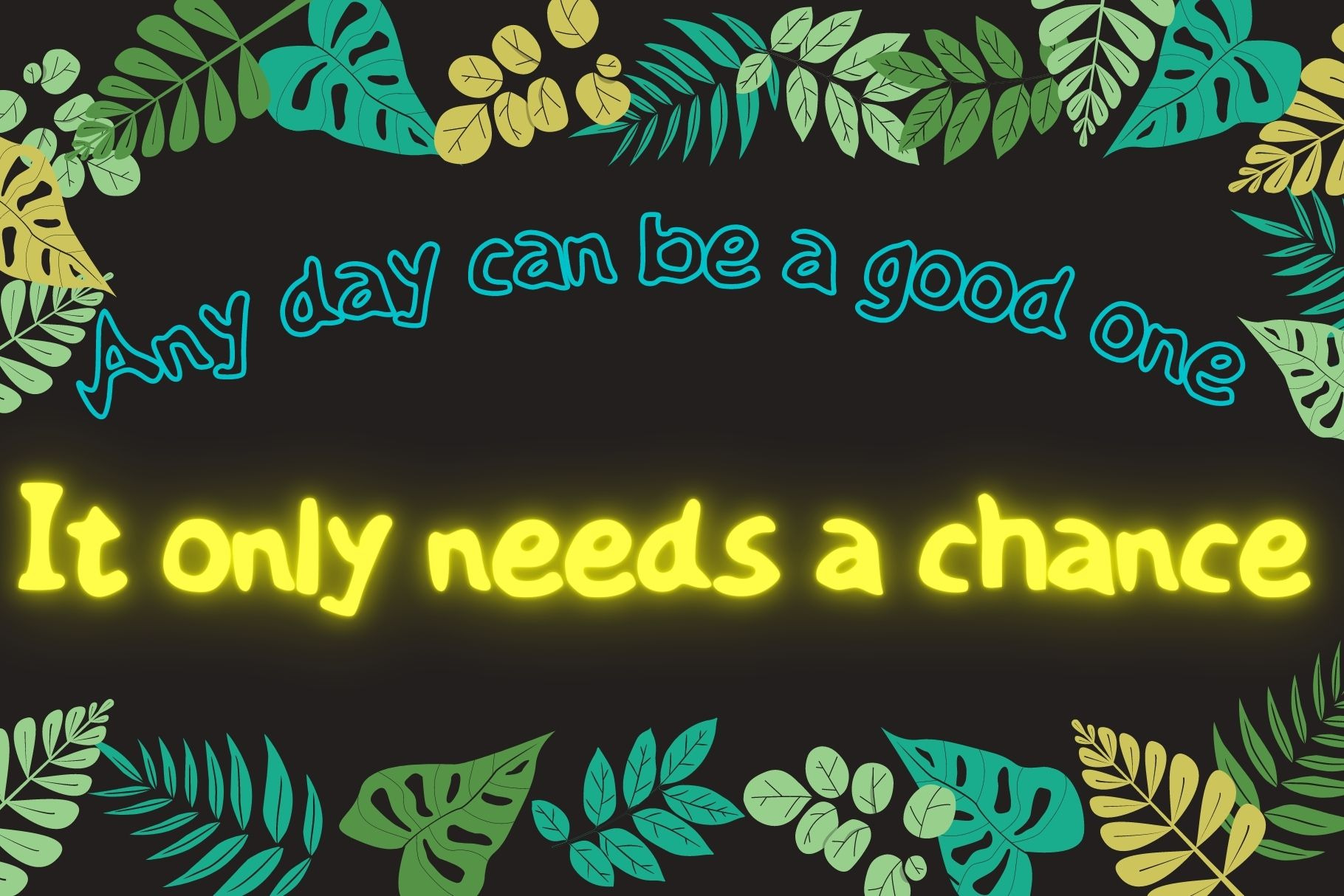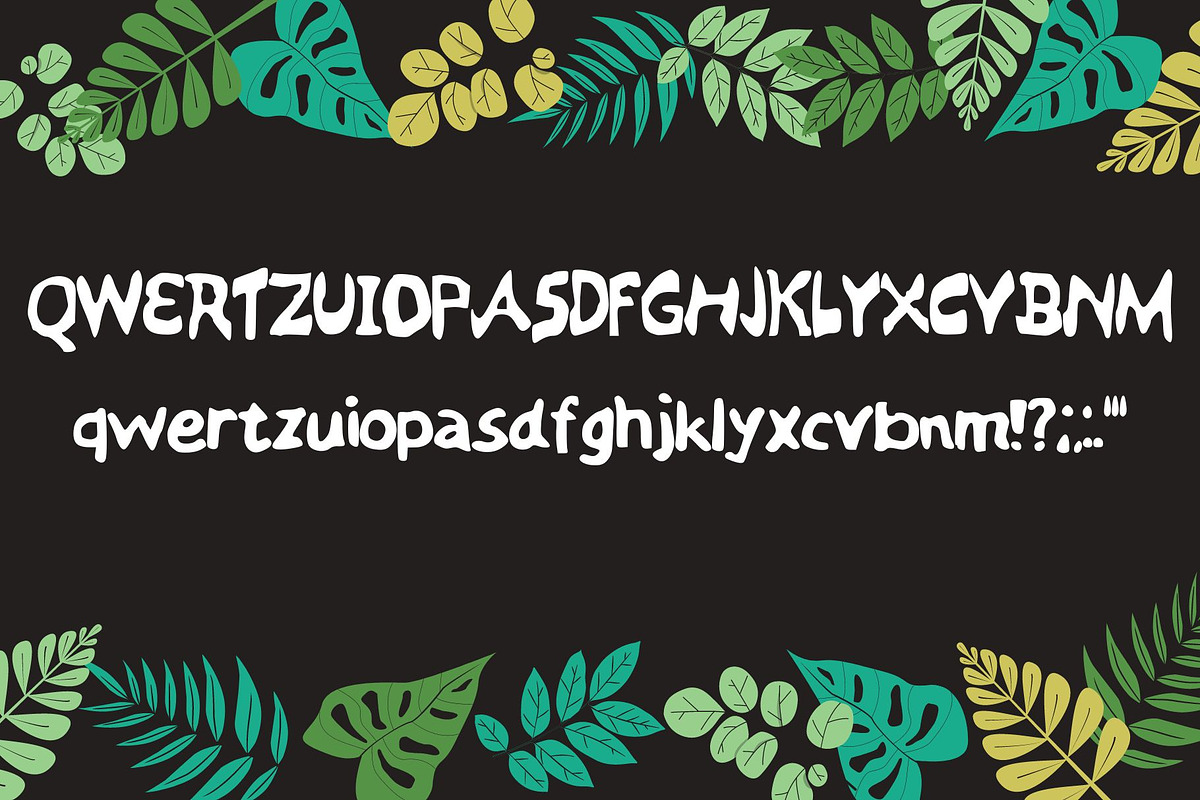
Handwritten brush font
Handwritten brush font, ideal for advertising, marketing, invitations, congratulations, social media, web design, for anyone looking for a unique special font.